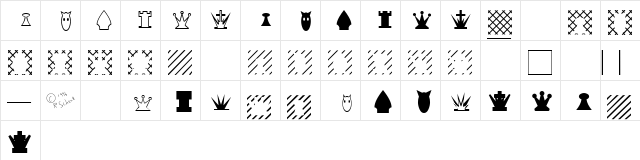
SimpleChessFont Regular
Design Context for SimpleChessFont Typeface
SimpleChessFont takes a measured approach to typography — its balanced proportions and neutral character make it a reliable workhorse for both digital and print work.